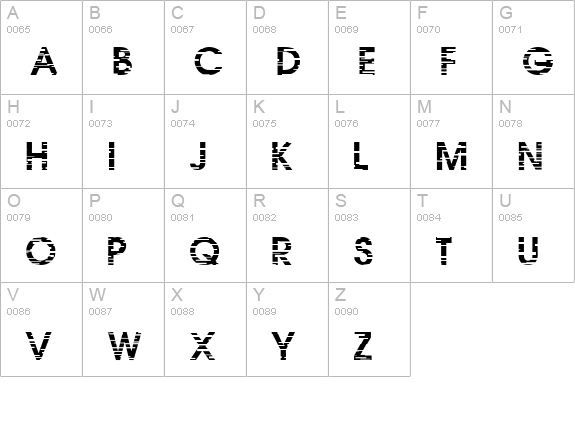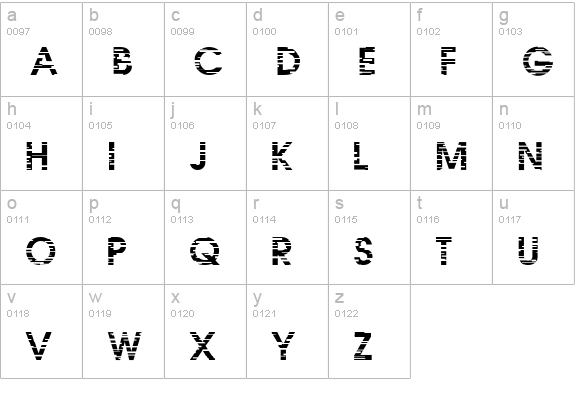
IxatNE Font Details
Introducing IxatNE, a modern and stylish font that exudes sophistication and elegance. With its sleek lines and unique design, IxatNE is perfect for adding a touch of class to any project. Whether you're working on a branding project, advertising campaign, or simply looking to elevate your design, IxatNE is sure to make a statement. The best part? IxatNE is completely free to download at FontsMarket.com. That's right, you can bring this stunning font into your creative arsenal without spending a dime. Don't miss out on the opportunity to enhance your designs with IxatNE's distinctive charm. Download it now and let your creativity soar!